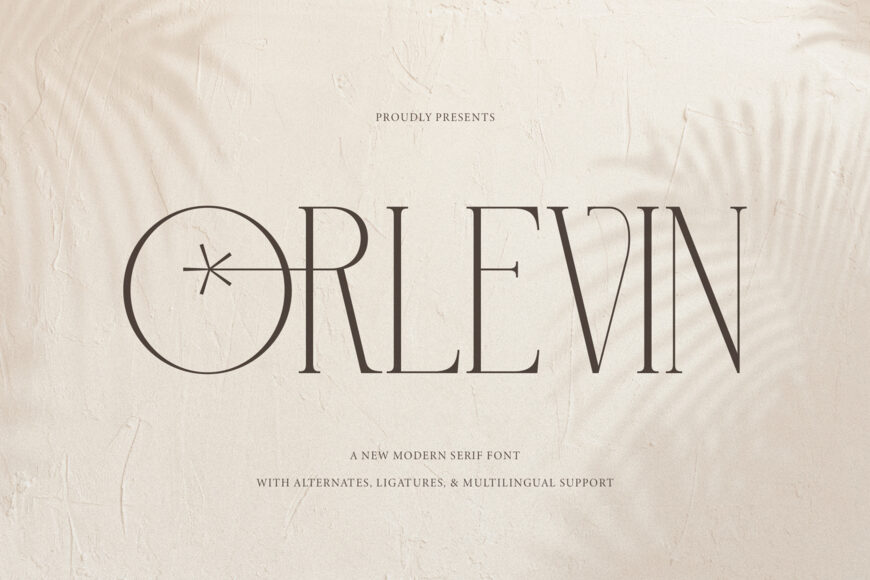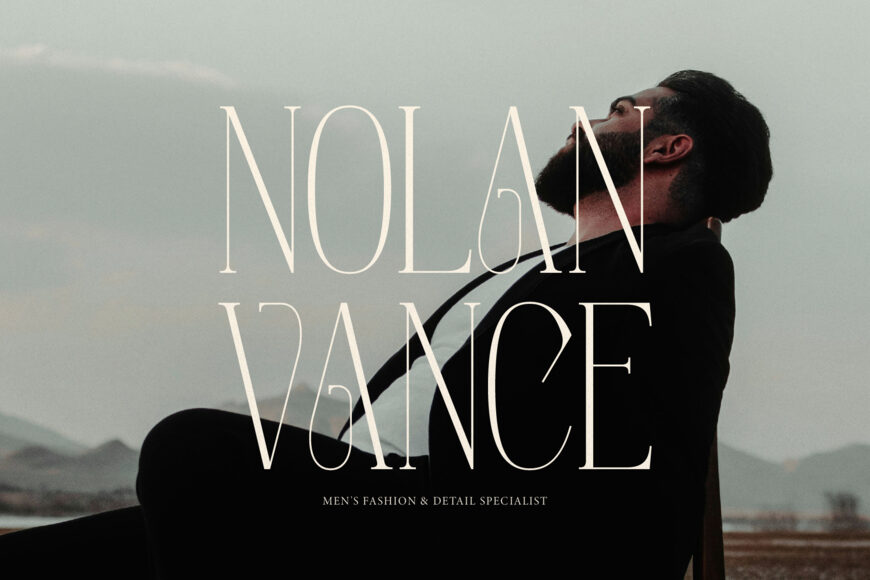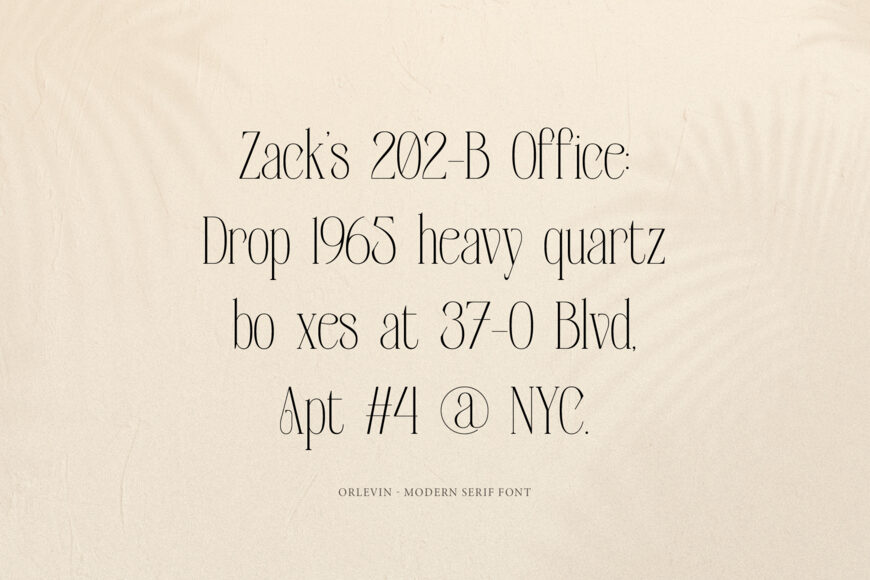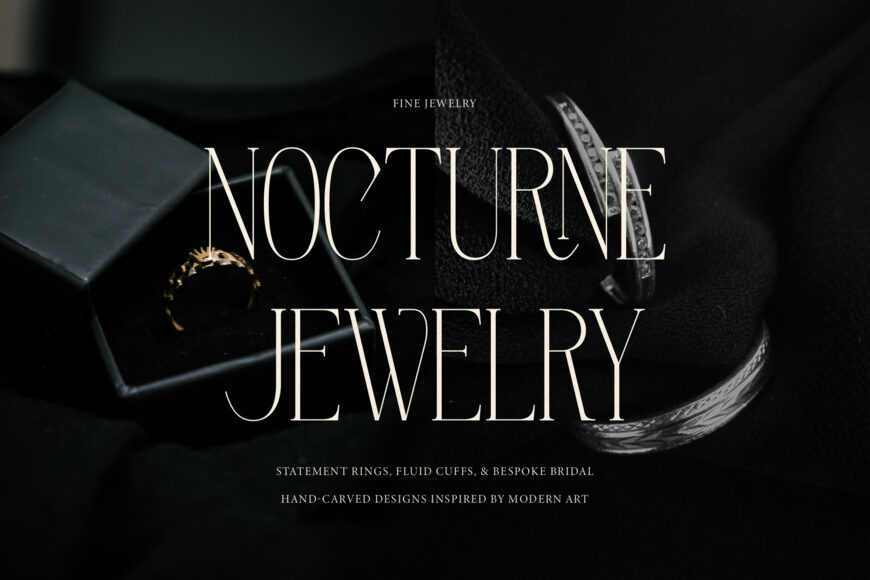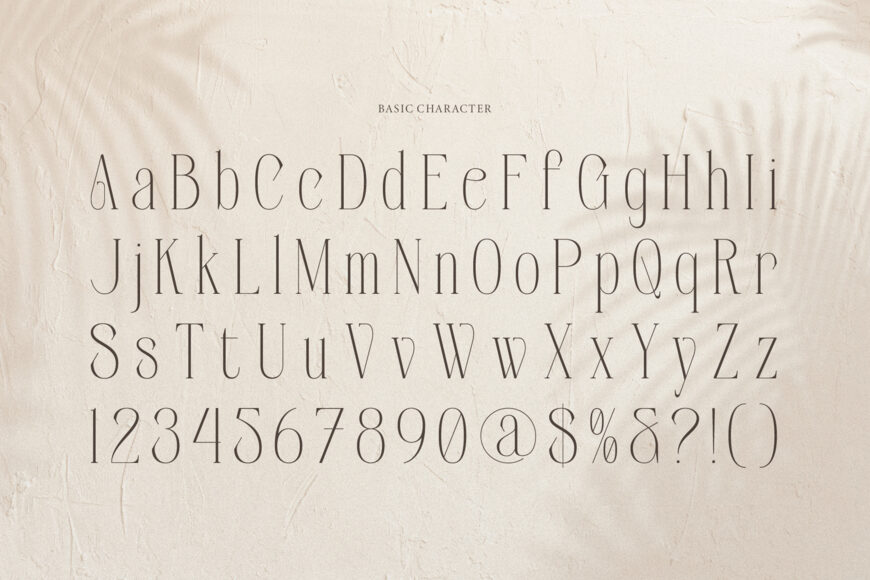
Orlevin Font
Infuse high-end editorial elegance, celestial luxury, and timeless aesthetic beauty into your branding with Orlevin! Built as a modern display serif typeface, it features ultra-slender stems, delicate hairline serifs, oversized circular geometric capitals, and intricate starburst crossbar accents.
Packed with stylistic alternates, ligatures, and multilingual support, it gives logos and headers an effortlessly chic, haute couture look. Ideal for luxury fashion branding, skincare packaging, boutique logo designs, editorial magazine headlines, wedding invitations, aesthetic beauty identity, and more!